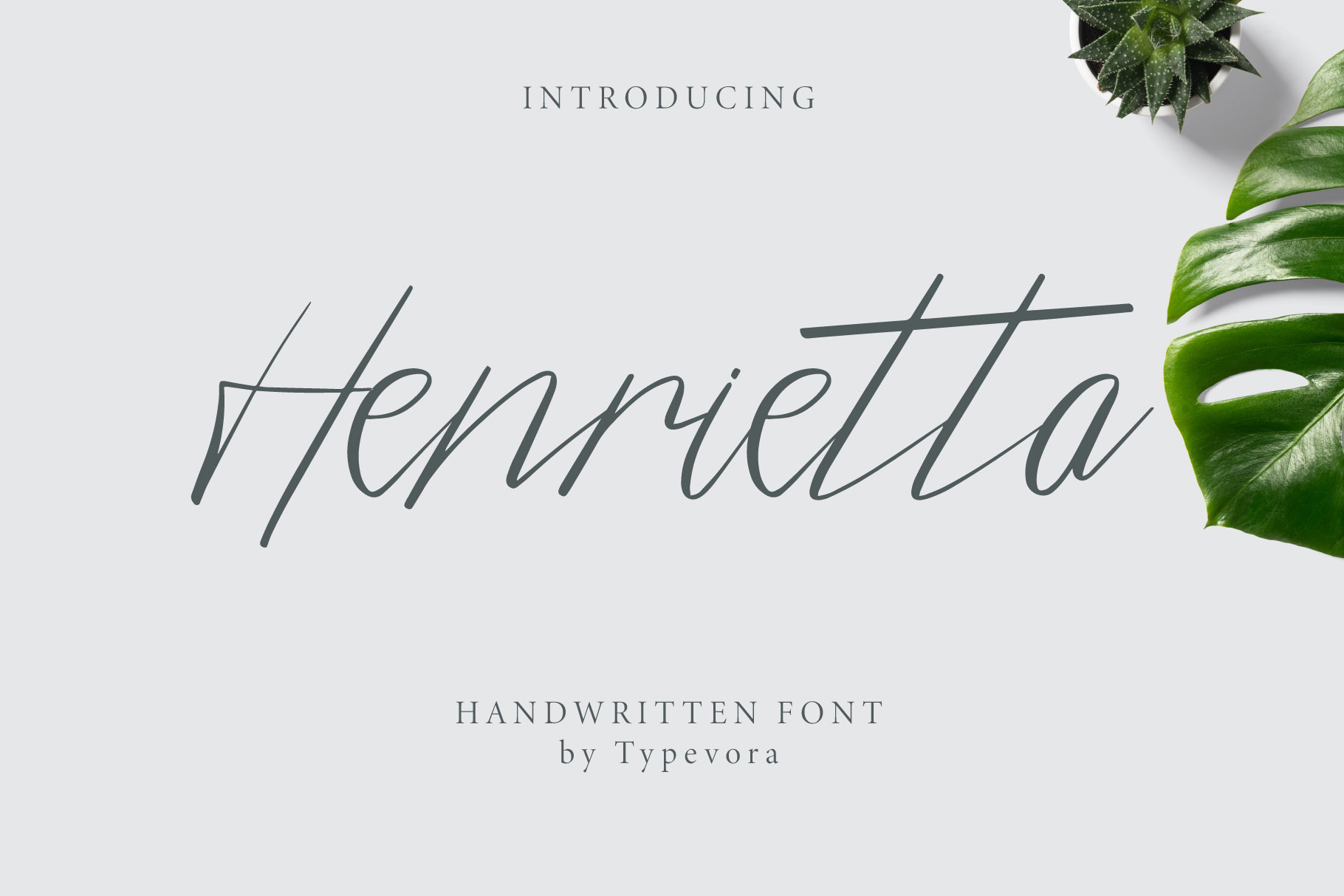
Henrietta - Signature Font
Henrietta - a signature and modern font perfect for branding, invitation, stationery, wedding designs, social media, advertisements, product packaging, product designs, label, photography, watermark, special events or anything.